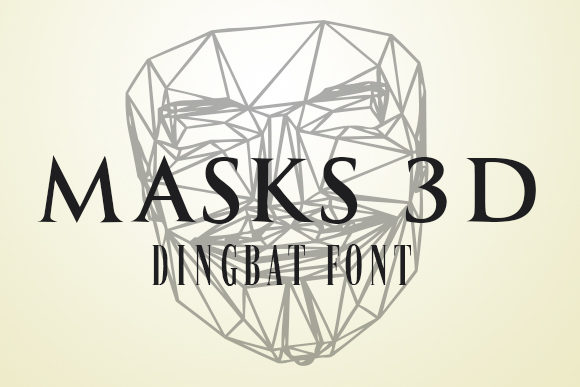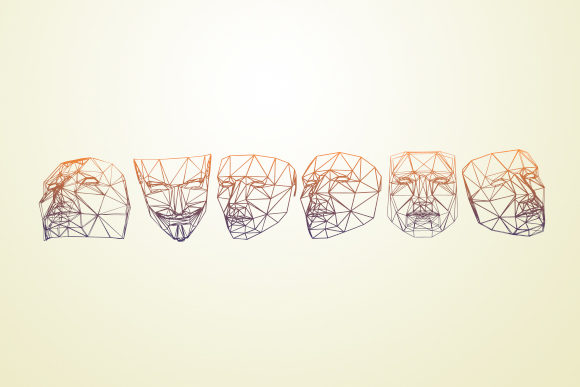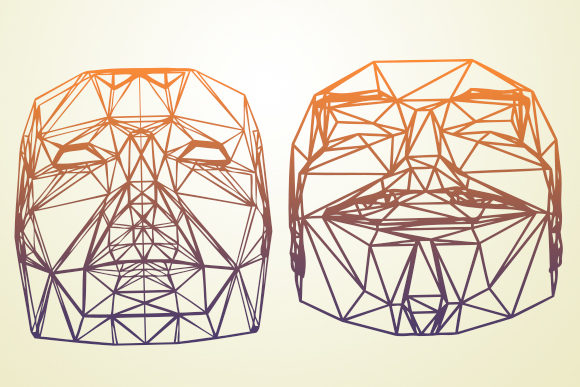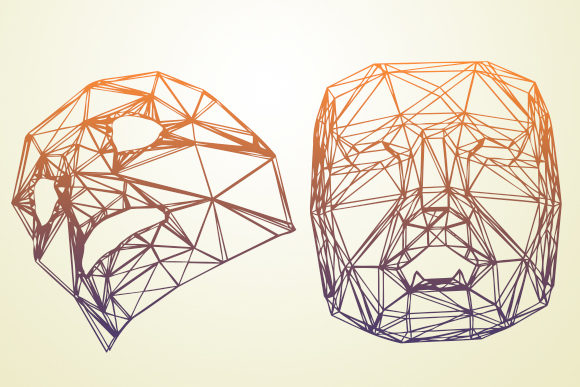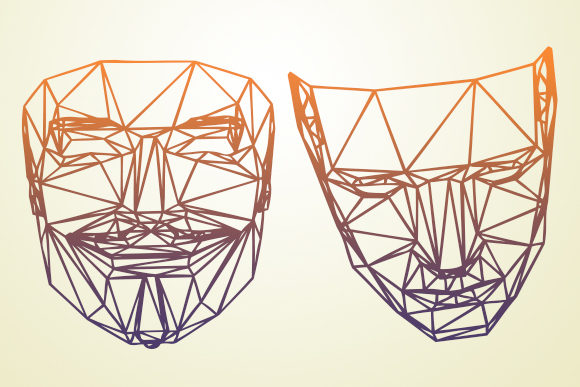
Masks 3D Font
About Masks 3D Font
Masks 3D sounds like an outstanding dingbats font that can add a unique and eye-catching touch to your creative ideas. With its 3D design elements, this font is perfect for adding depth and visual interest to your projects. Here are some ways you can use the Masks 3D font to make your ideas stand out:
1. Graphic Designs: Incorporate the Masks 3D font into your graphic designs to create attention-grabbing visuals. Use the 3D elements as decorative accents, icons, or borders to add depth and dimension to your designs. Whether you’re designing posters, flyers, or digital illustrations, the Masks 3D font will make your graphics stand out.
2. Product Packaging: Make your product packaging stand out by using the Masks 3D font. Whether it’s for cosmetics, toys, or any other product, the 3D design elements will add a unique and captivating touch to your packaging designs. Use the font to create labels, tags, or product descriptions that catch the eye of your customers.
3. Website Design: Incorporate the Masks 3D font into your website design to create a visually engaging and immersive experience. Use the 3D elements as headings, buttons, or navigation icons to guide users through your website. The font’s outstanding design will make your website memorable and stand out from the crowd.
4. Event Invitations: Create unforgettable event invitations using the Masks 3D font. Whether it’s for a birthday party, wedding, or corporate event, the 3D elements will add a touch of elegance and excitement to your invitations. Combine the font with other typography and design elements to create a cohesive and visually stunning invitation.
5. Social Media Posts: Make your social media posts pop with the Masks 3D font. Use the 3D elements as attention-grabbing icons or to highlight important information in your posts. Whether you’re sharing announcements, promotions, or simply want to add a touch of creativity to your feed, the Masks 3D font will make your posts stand out.
6. Art and Craft Projects: Incorporate the Masks 3D font into your art and craft projects for a unique and dimensional look. Use the 3D elements as stencils, templates, or decorative elements in your paintings, mixed media projects, or DIY crafts. The font’s outstanding design will add a sense of depth and creativity to your creations.
Remember to explore different ways to use the Masks 3D font and experiment with its 3D elements to create your own unique and standout designs. Let the font inspire your creativity and take your ideas to new heights.